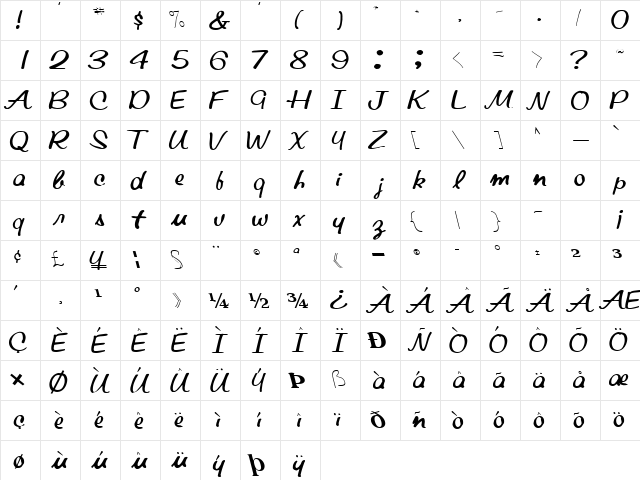
RebuffText Regular Font Preview
RebuffText Regular
Design Context for RebuffText Typeface
RebuffText takes a measured approach to typography — its balanced proportions and neutral character make it a reliable workhorse for both digital and print work.